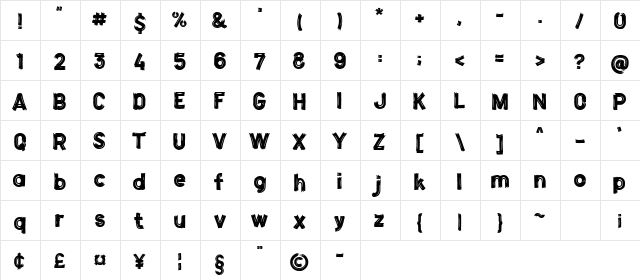
Alexaniri_demo Regular
| Foundry | Cornertype!" Studio |
| Designer | Anang Fibriyanto | Cornertype!" Studio |
Design Context for Alexaniri_demo Typeface
Alexaniri_demo takes a measured approach to typography — its balanced proportions and neutral character make it a reliable workhorse for both digital and print work.